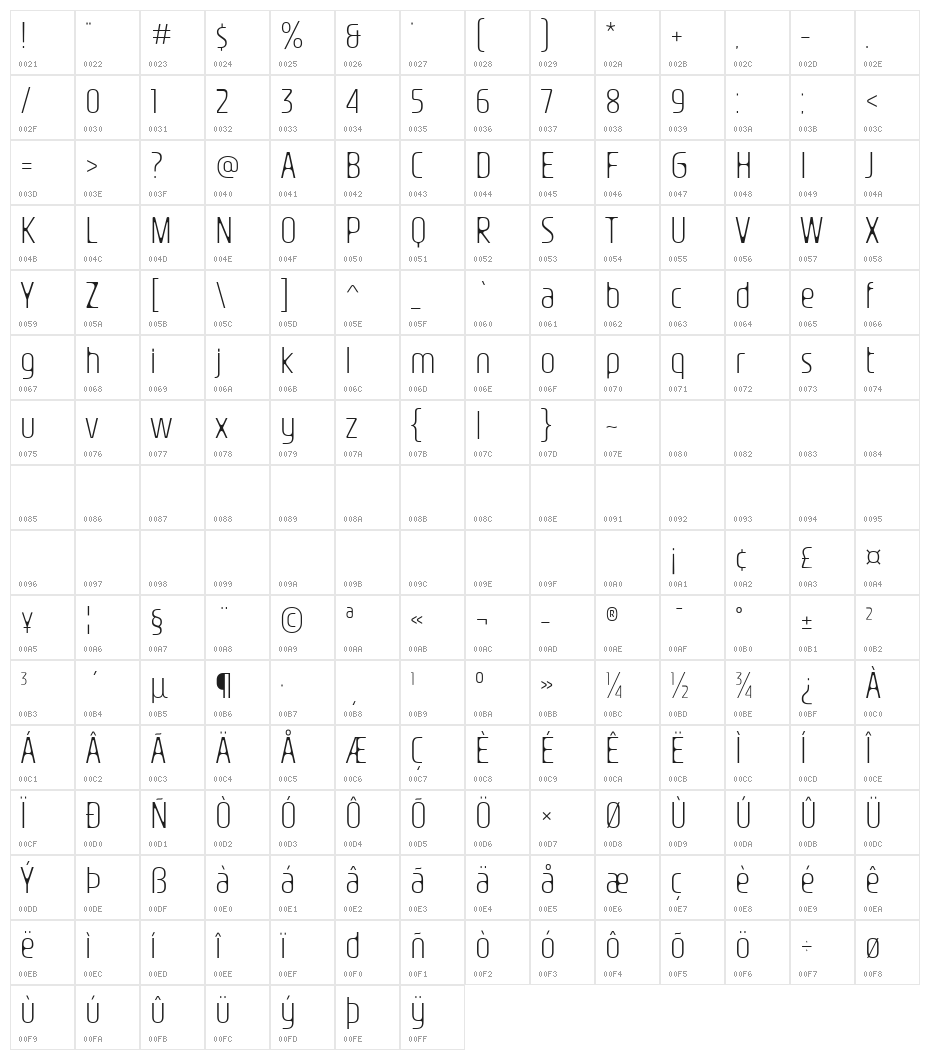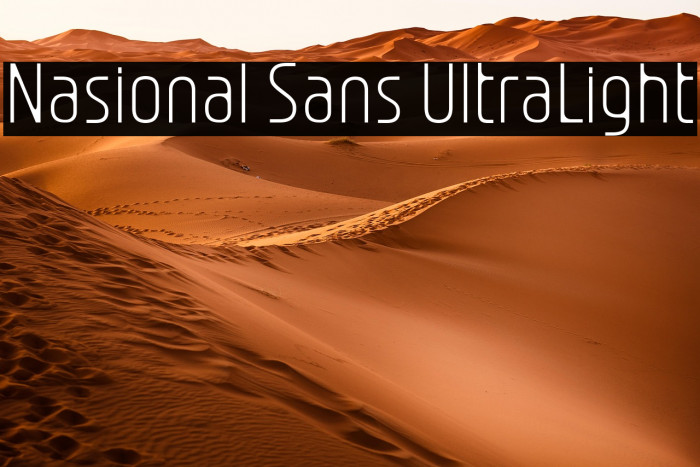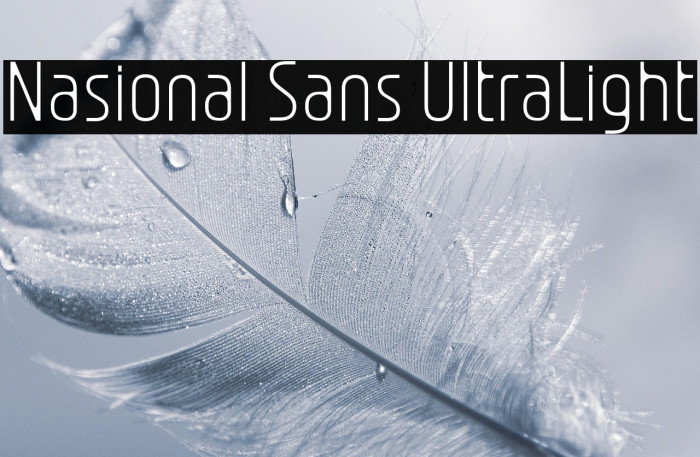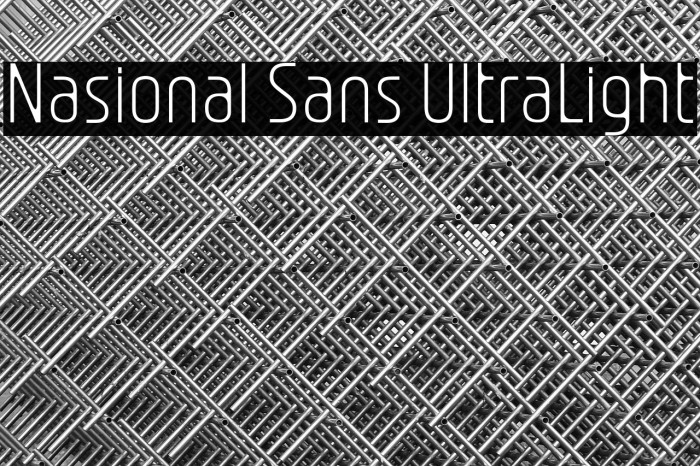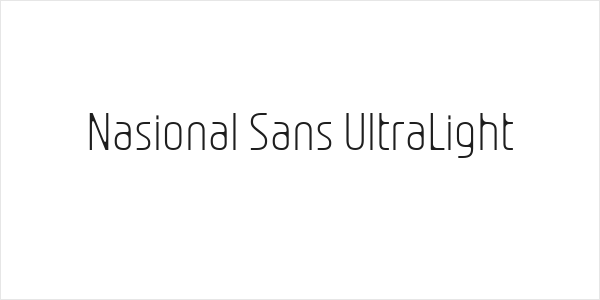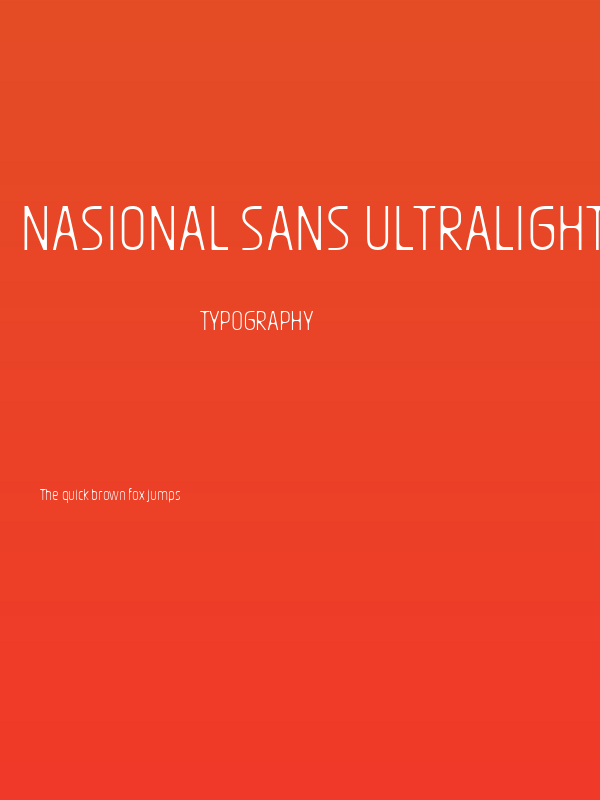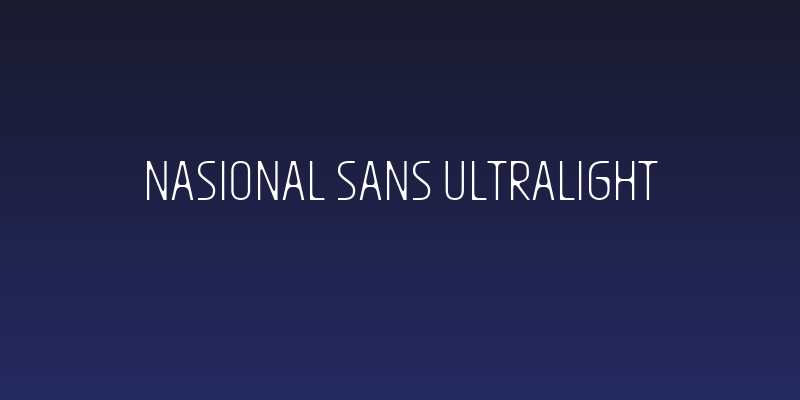
Nasional Sans UltraLight Font
Nasional Sans UltraLight Description
This font features a sleek and modern sans-serif design with ultra-light strokes, providing a clean and minimalist appearance. The characters are tall and narrow, contributing to a condensed look that is both stylish and functional. The uniformity in stroke width across all characters ensures a harmonious visual flow, while the subtle curves add a touch of elegance. The font maintains excellent readability, making it suitable for various design applications. Its geometric structure is complemented by slightly rounded edges, which soften the overall aesthetic without compromising its contemporary feel.